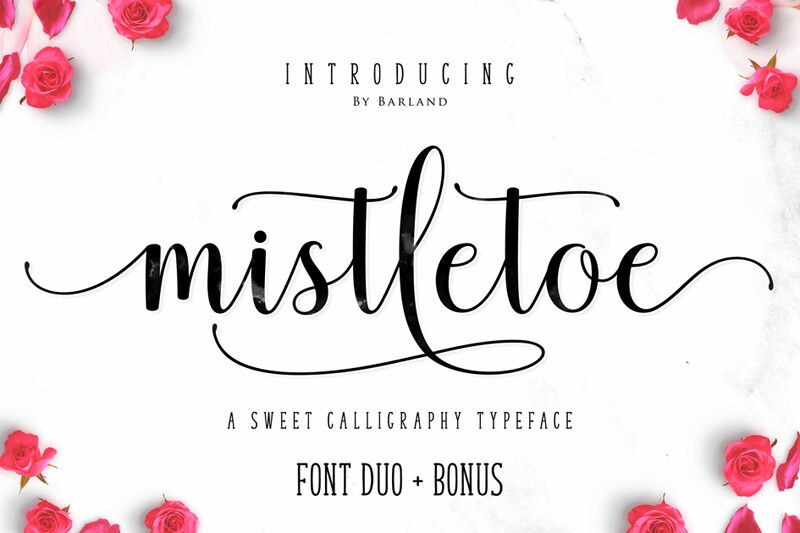
Mistletoe is a captivating calligraphic font that exudes elegance and sophistication. Designed by Barmawy Muchtar, this script-inspired typeface boasts a harmonious blend of flowing strokes and refined aesthetics. The distinctive letterforms effortlessly convey a sense of artistry and craftsmanship, making Mistletoe an ideal choice for a wide range of design applications.
From high-end wedding invitations to luxury brand identities, this font's versatility shines through. Its calligraphic flourishes and graceful curves lend an air of timelessness and refinement to any project, while the seamless connectivity between characters creates a visually cohesive and visually appealing typographic experience.